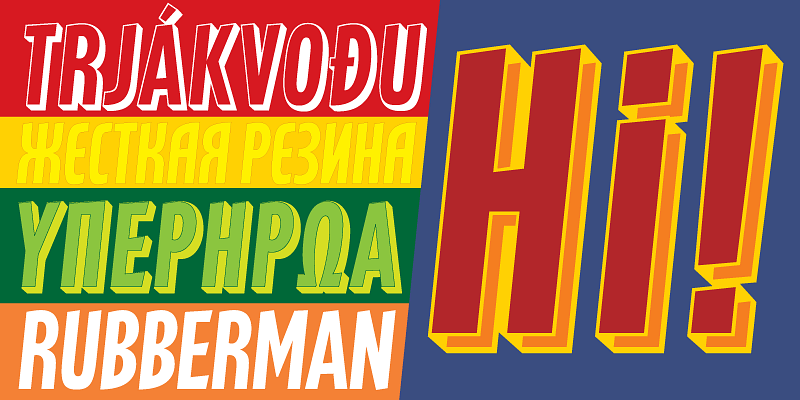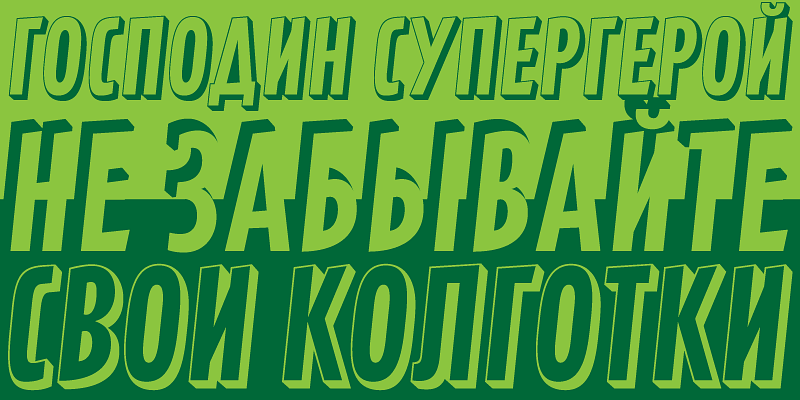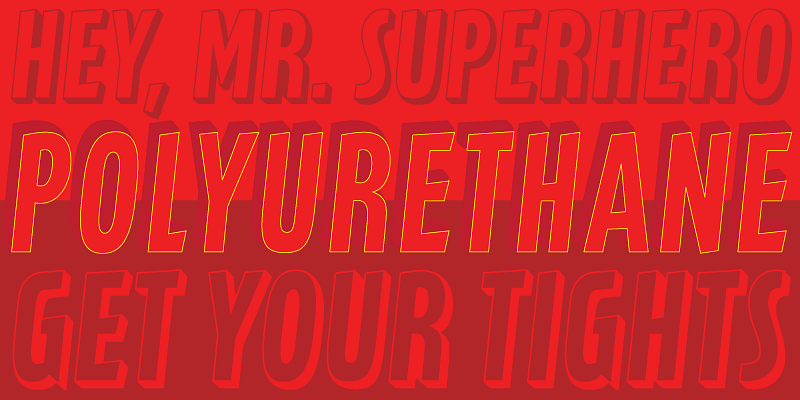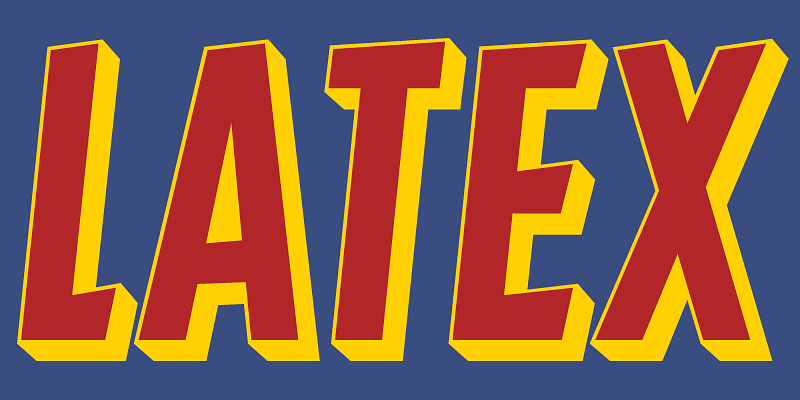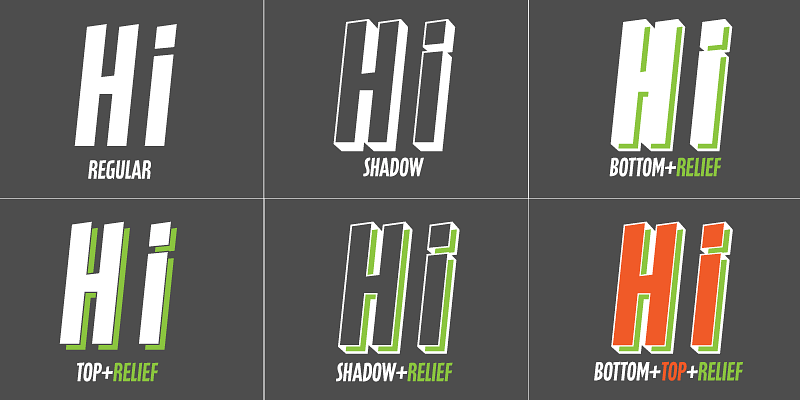
Latex was initially a single multi-script font commissioned in 2012 to market a superhero movie. The design later grew to include a shaded variant and a set of fonts with different layering possibilities for dimensional potential.